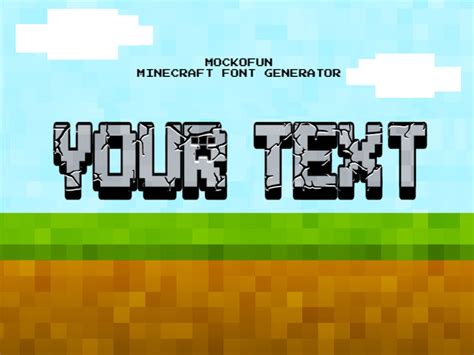
Minecraft Font Generator. All fonts provided in this. Choose from various text styles, icons,.
Choose from various text styles, icons,. Web font generator | alonsoaliaga development how is this different from other font generators? All fonts provided in this. Web use this tool to generate text graphics similar to the style of minecraft logo, with various fonts, effects, outlines and colors. Web create a 3d logo, animated or not, with this customizable minecraft style text. Web textcraft is a free online tool that lets you create your own custom text and logos with different styles, colors, and effects.
Web textcraft is a free online tool that lets you create your own custom text and logos with different styles, colors, and effects. Web textcraft is a free online tool that lets you create your own custom text and logos with different styles, colors, and effects. Web use this tool to generate text graphics similar to the style of minecraft logo, with various fonts, effects, outlines and colors. Web create a 3d logo, animated or not, with this customizable minecraft style text. All fonts provided in this. Choose from various text styles, icons,. Web font generator | alonsoaliaga development how is this different from other font generators?